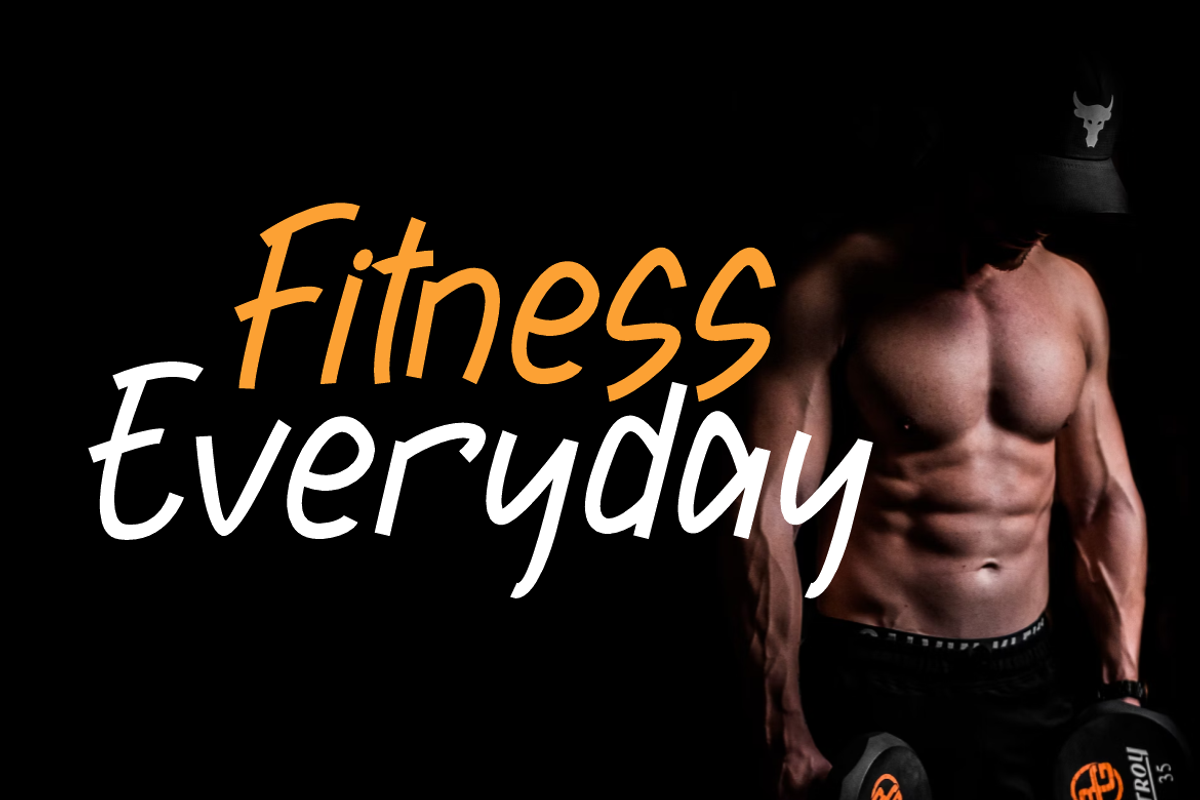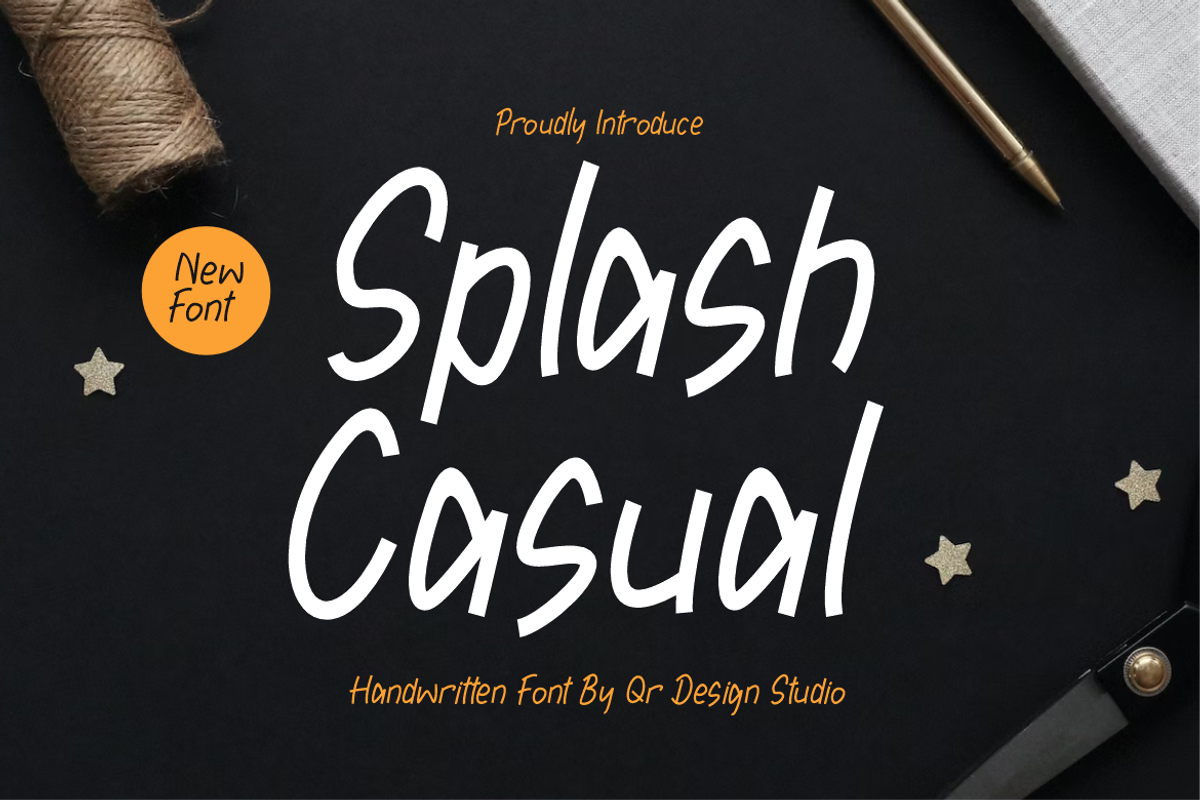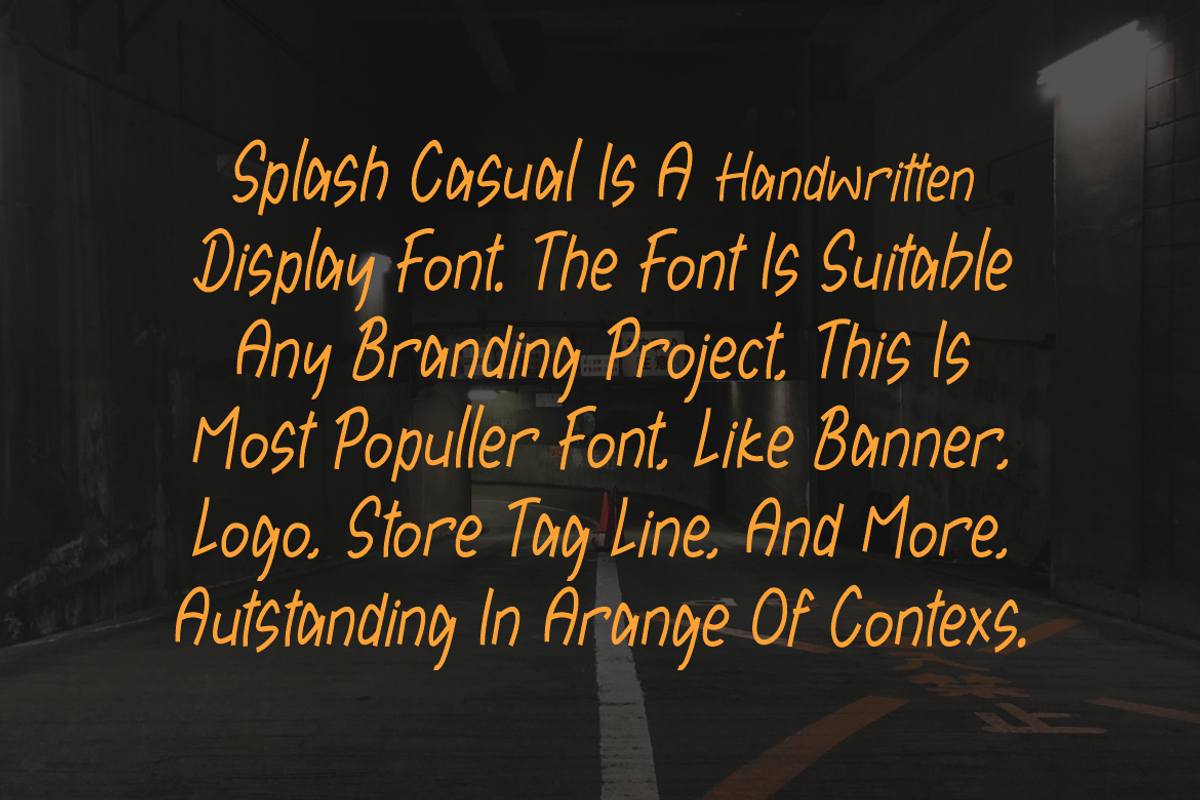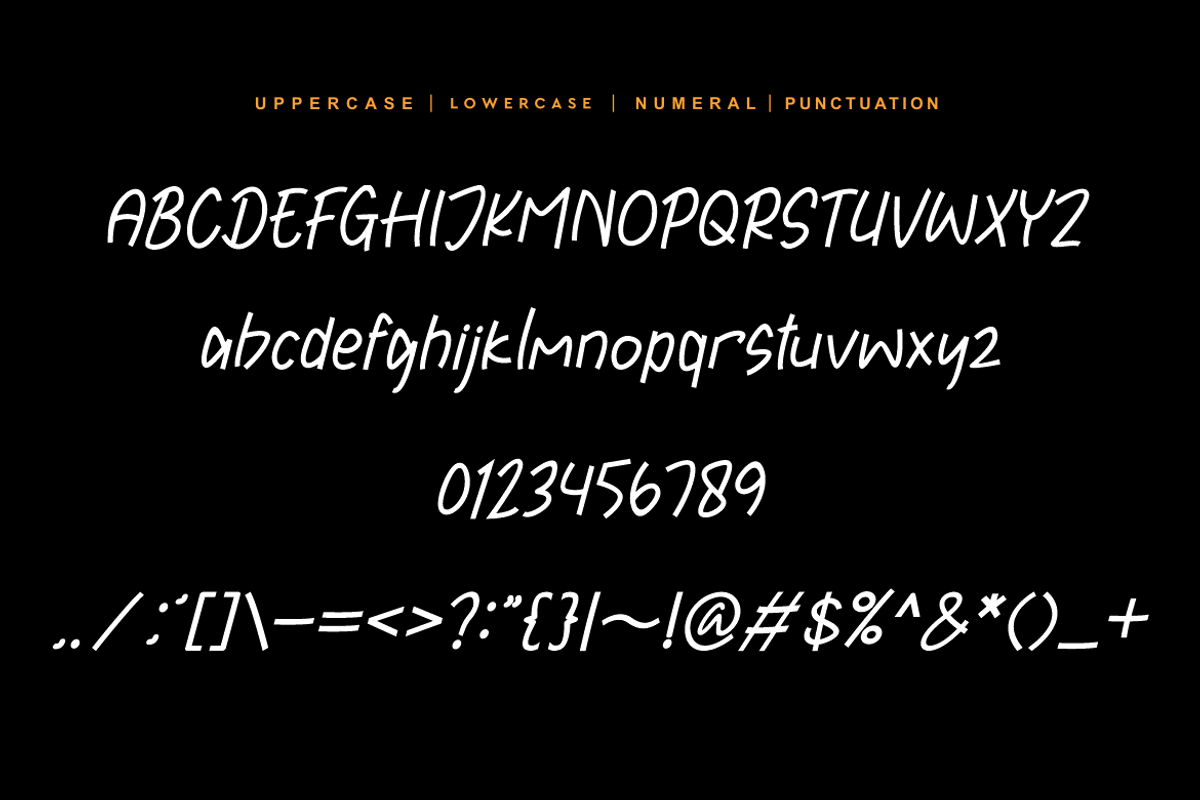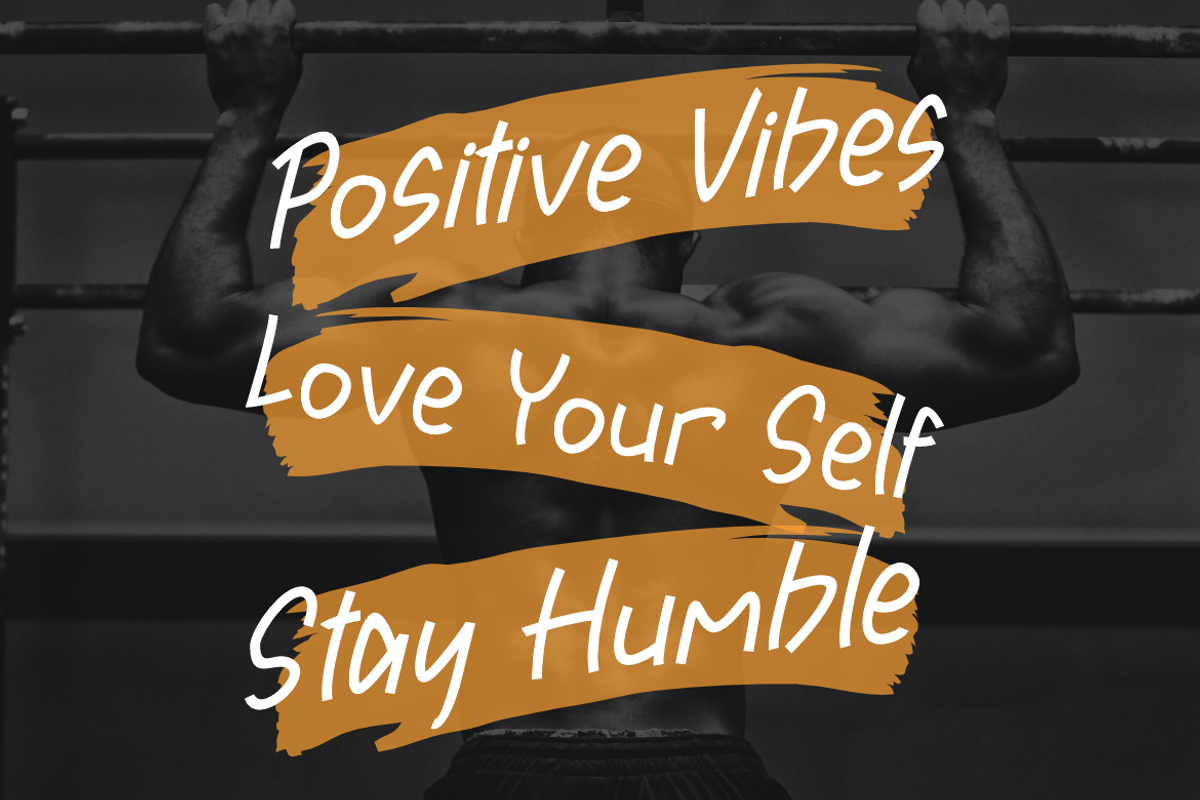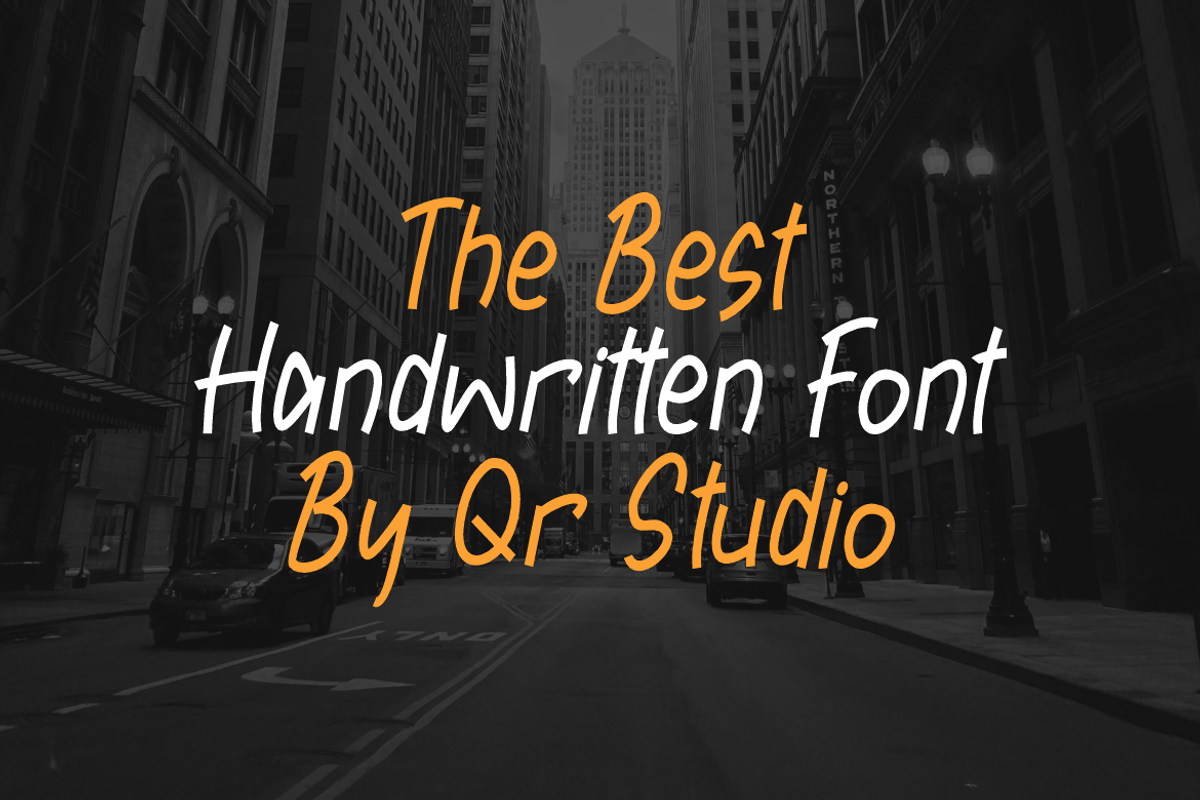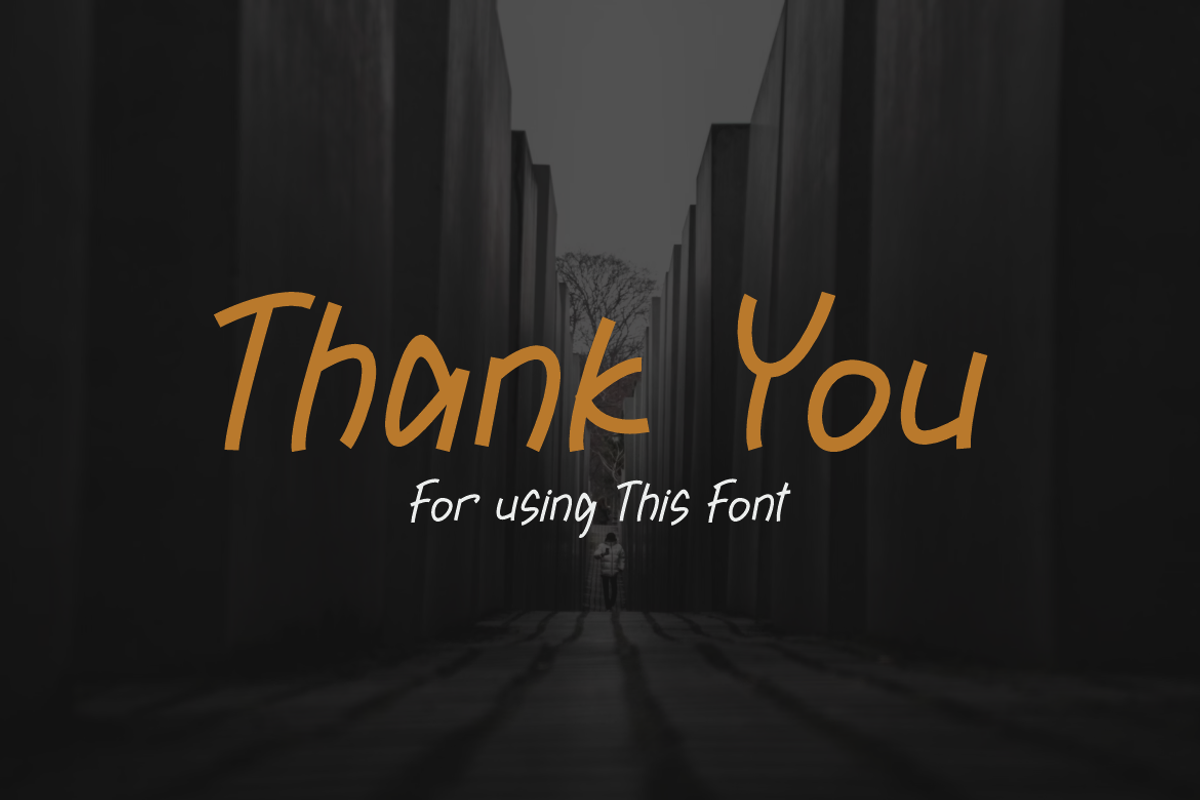
Splash Casual
Splash Casual Font is a bold and authentic display font. The font is suitable for any branding project like poster, logo, sport, and many more. Outstanding in a wide range of contexts.